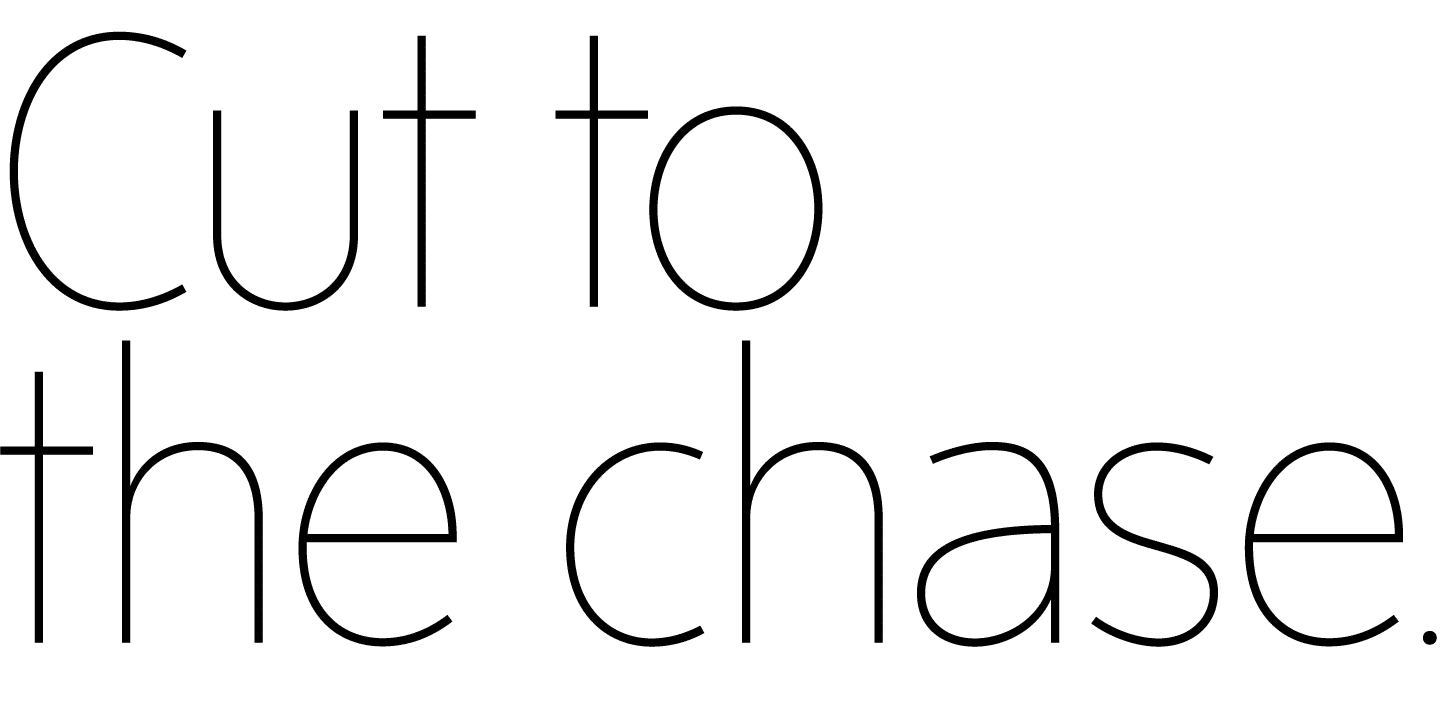
Sense Font
Modernist sans serif with a “big” look and lots of weights. Compact, elegant and strong, Sense commands any kind of page — from the largest headline to the smallest text.
• Designer: Nick Shinn